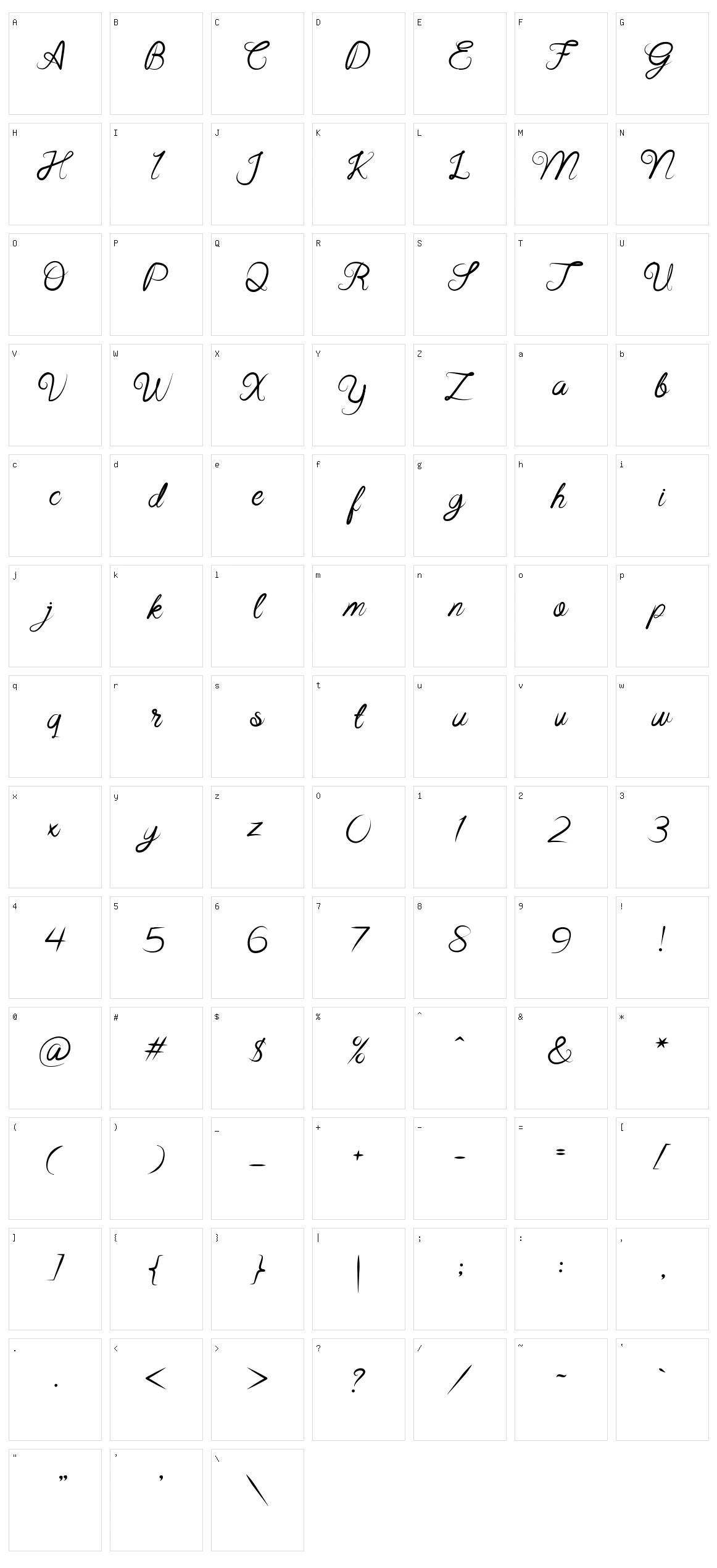
The free font Beast Fantasia is carefully designed by Bories Bechker, showcasing a thoughtful balance of creativity and usability and falls under the Script font style. When you download the ZIP file, it contains only 54.64 KB of font files, making it lightweight and quick to download. Please review the license details below to understand permitted usage and distribution rights. If license information is not available, we recommend using this font for personal projects only or contacting the author directly for commercial usage permissions.